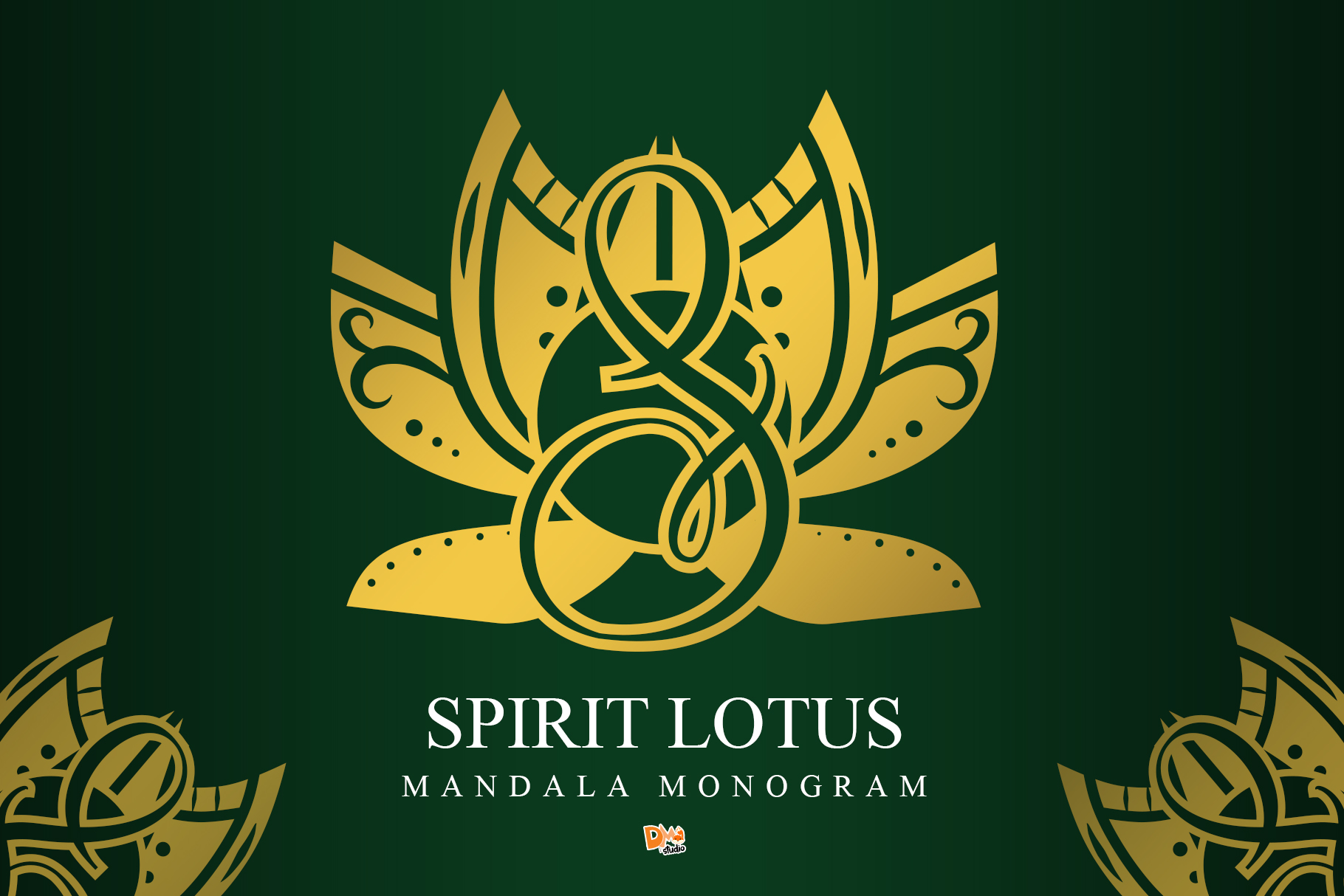
Spirit Lotus Mandala Monogram
Spirit Lotus Mandala Monogram – Mystical & Ornamental Monogram Font
Spirit Lotus Mandala Monogram is a soulful and decorative monogram font that blends spiritual symbolism with intricate lotus mandala designs. Each character in this typeface reflects the ethereal essence of spirit and transformation, making it an ideal choice for meaningful branding, boho wedding stationery, affirmation prints, meditation journals, and artistic packaging.
• Mystical Lotus Mandala Artwork: Every letter is intricately adorned with hand-drawn mandala patterns inspired by spiritual growth and inner peace.
• Perfect for Soulful & Artistic Designs: Great for yoga brands, wellness products, spiritual goods, and personal monograms.
• Ornamental & Harmonious Style: Captures the balance of sacred geometry with a modern elegance.
• Full Character Set: Includes uppercase, lowercase, numbers, punctuation, and multilingual support.